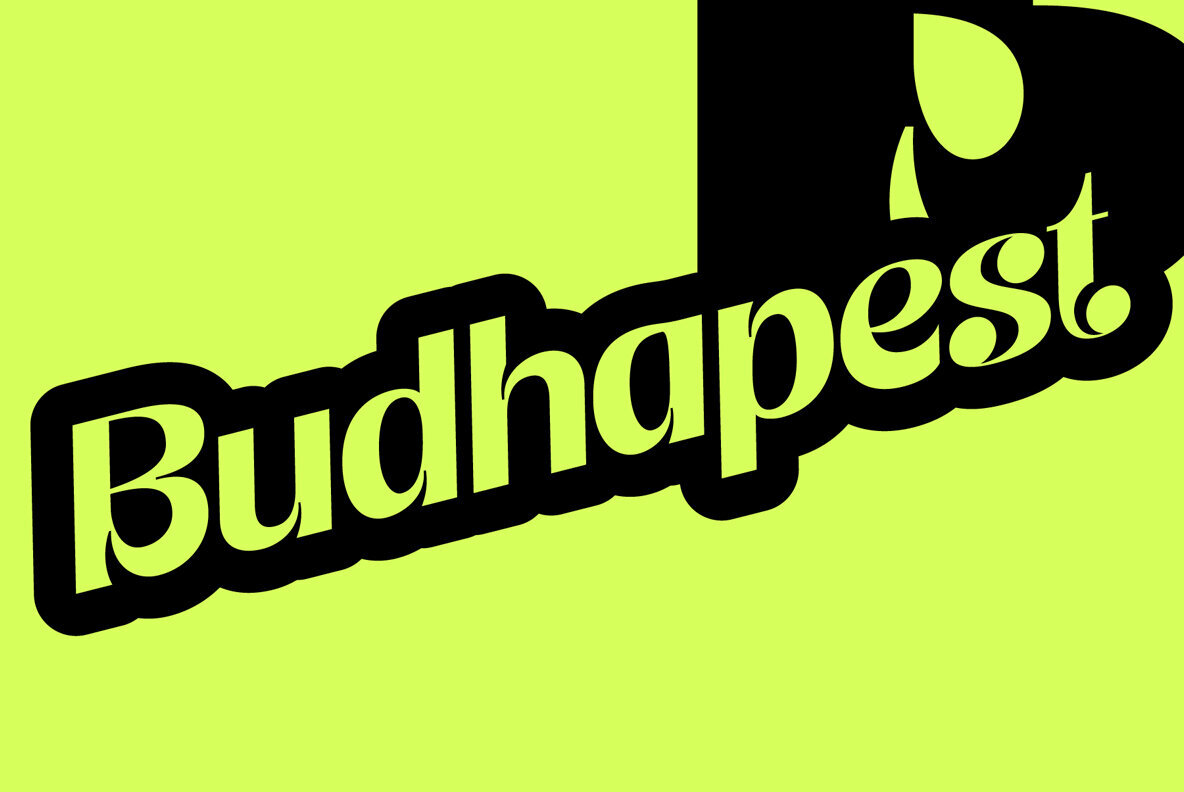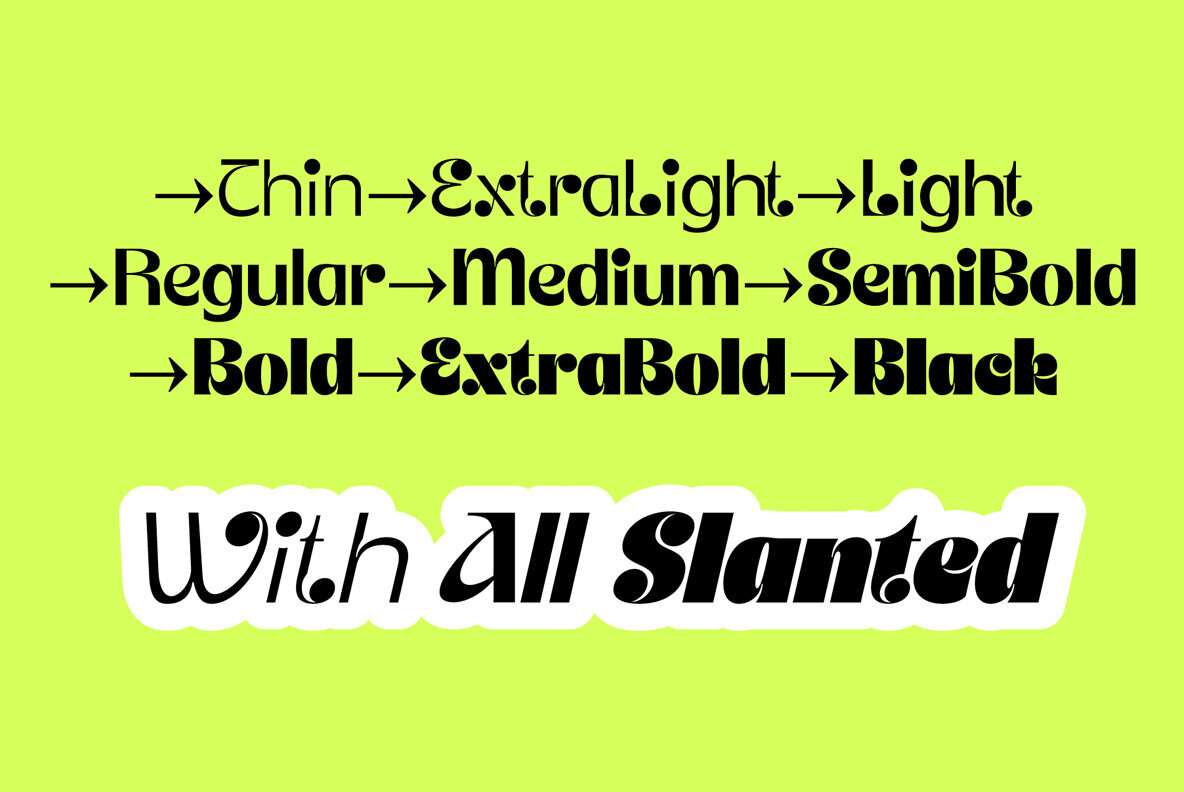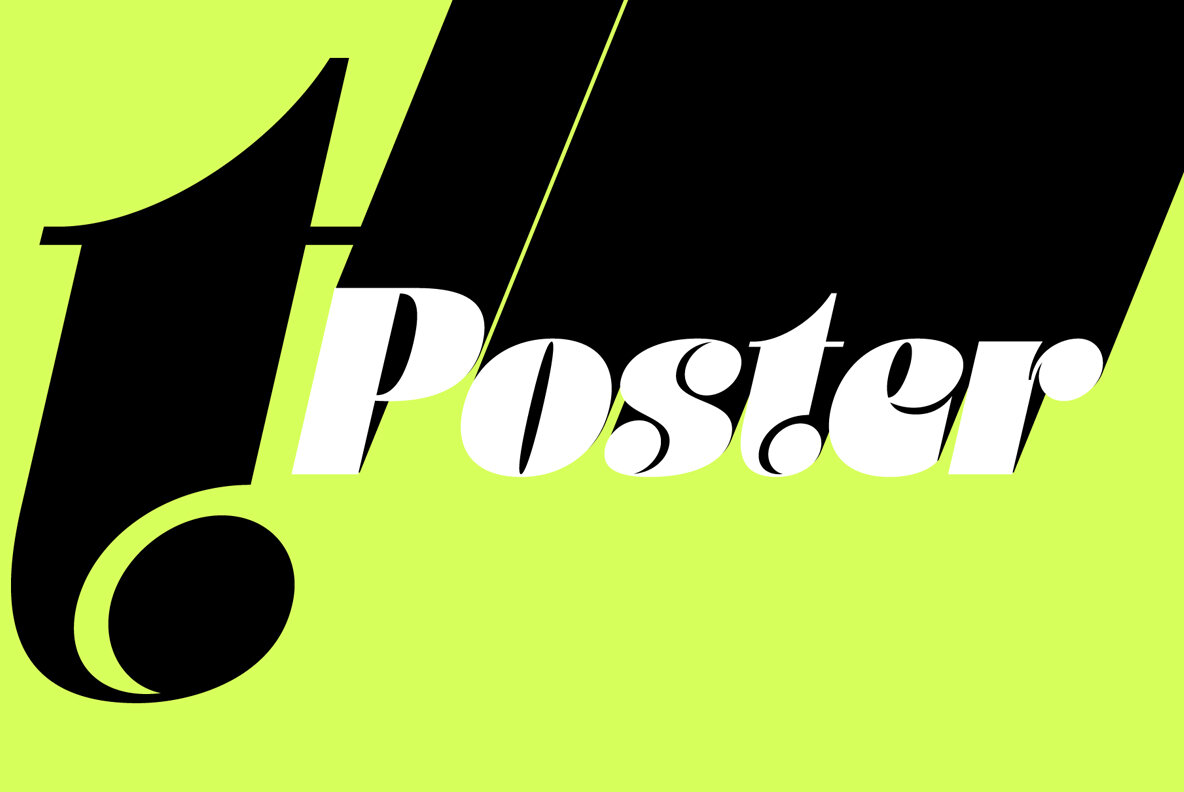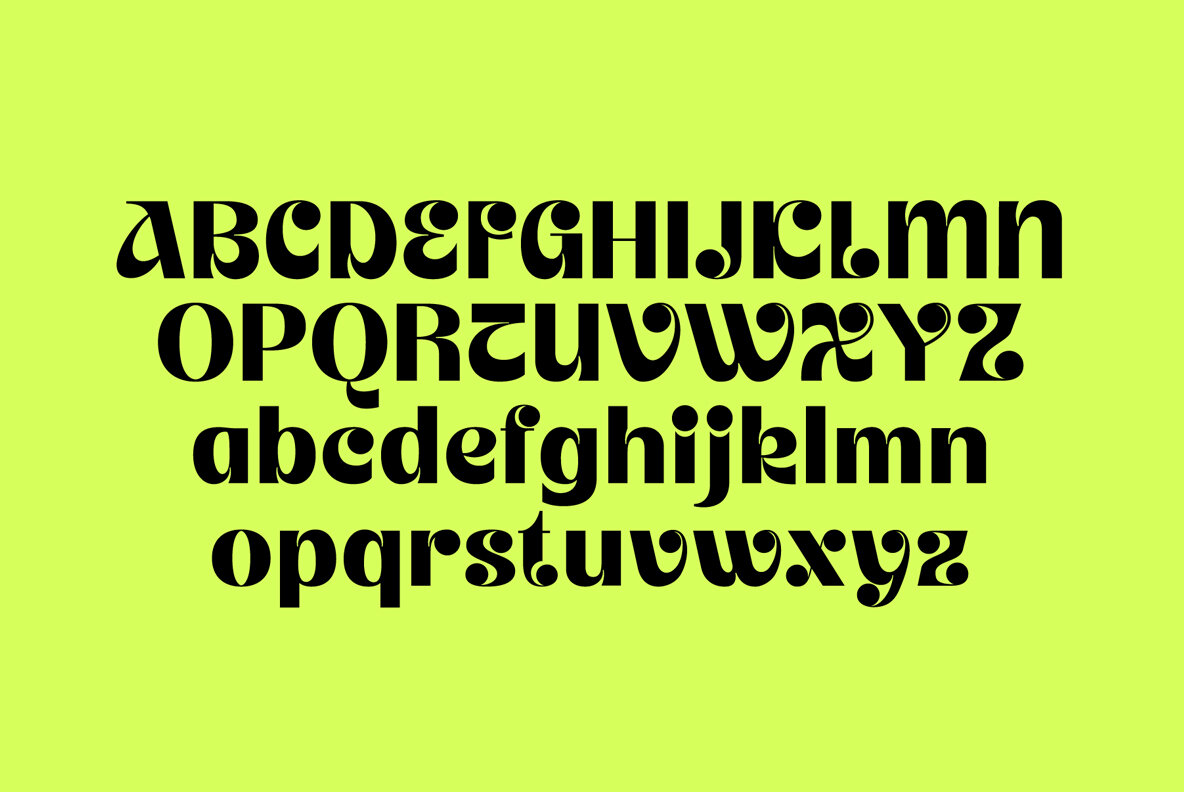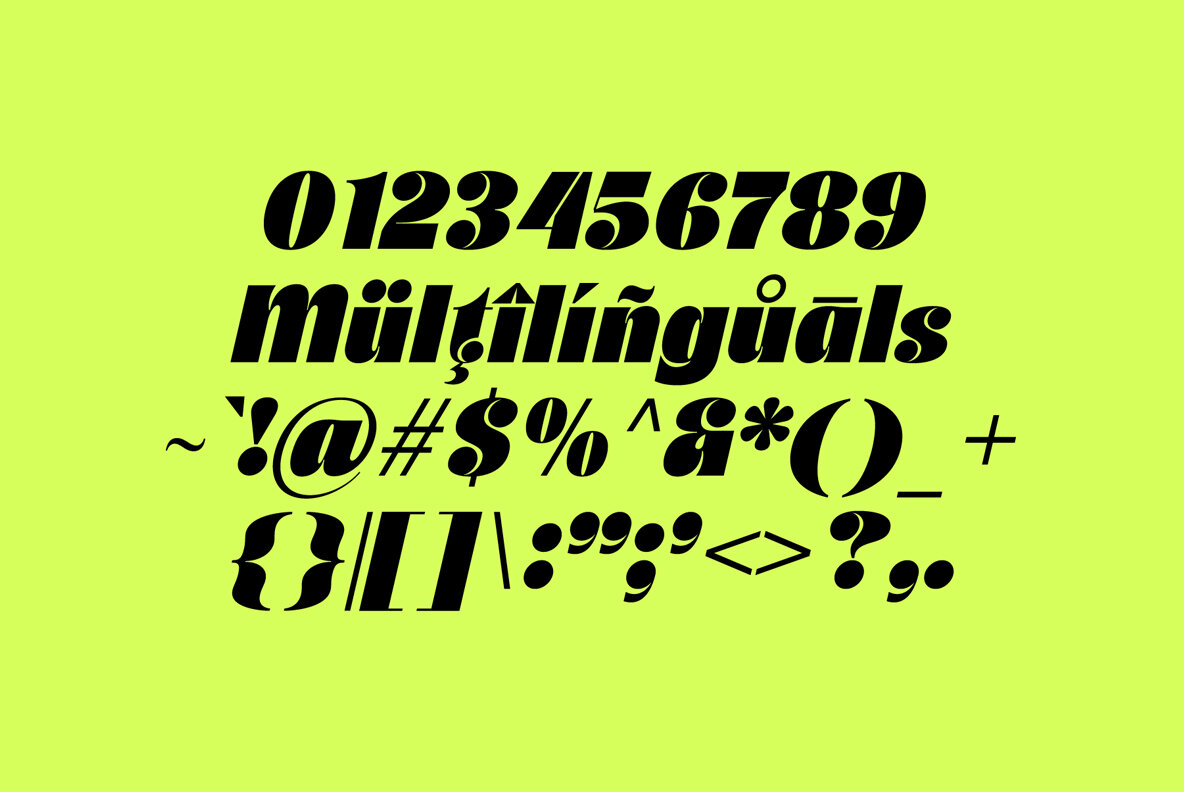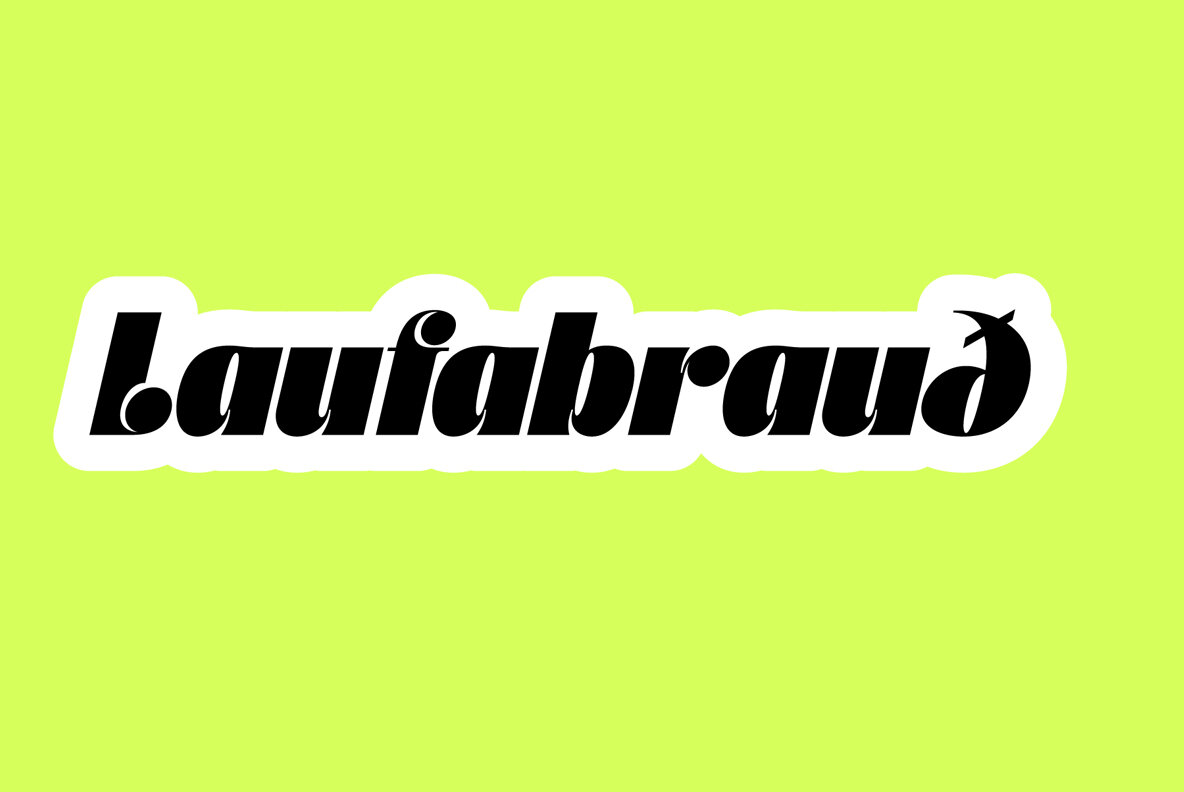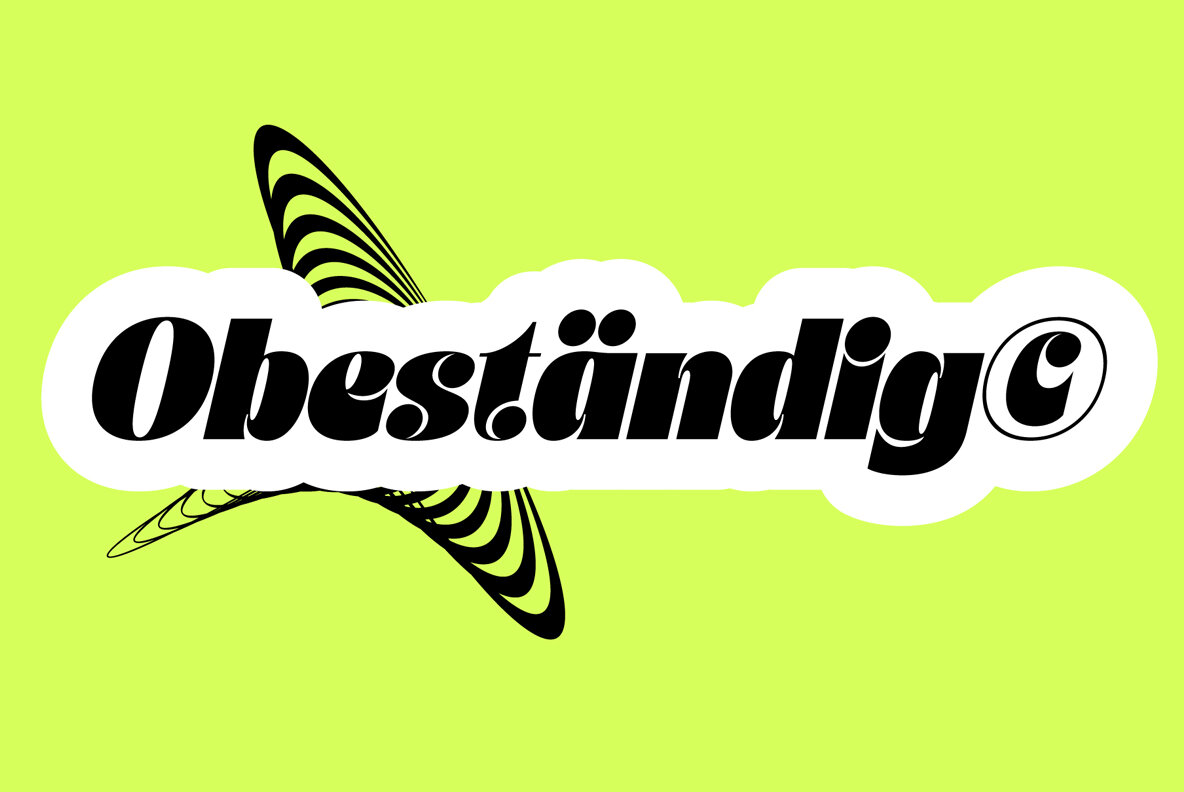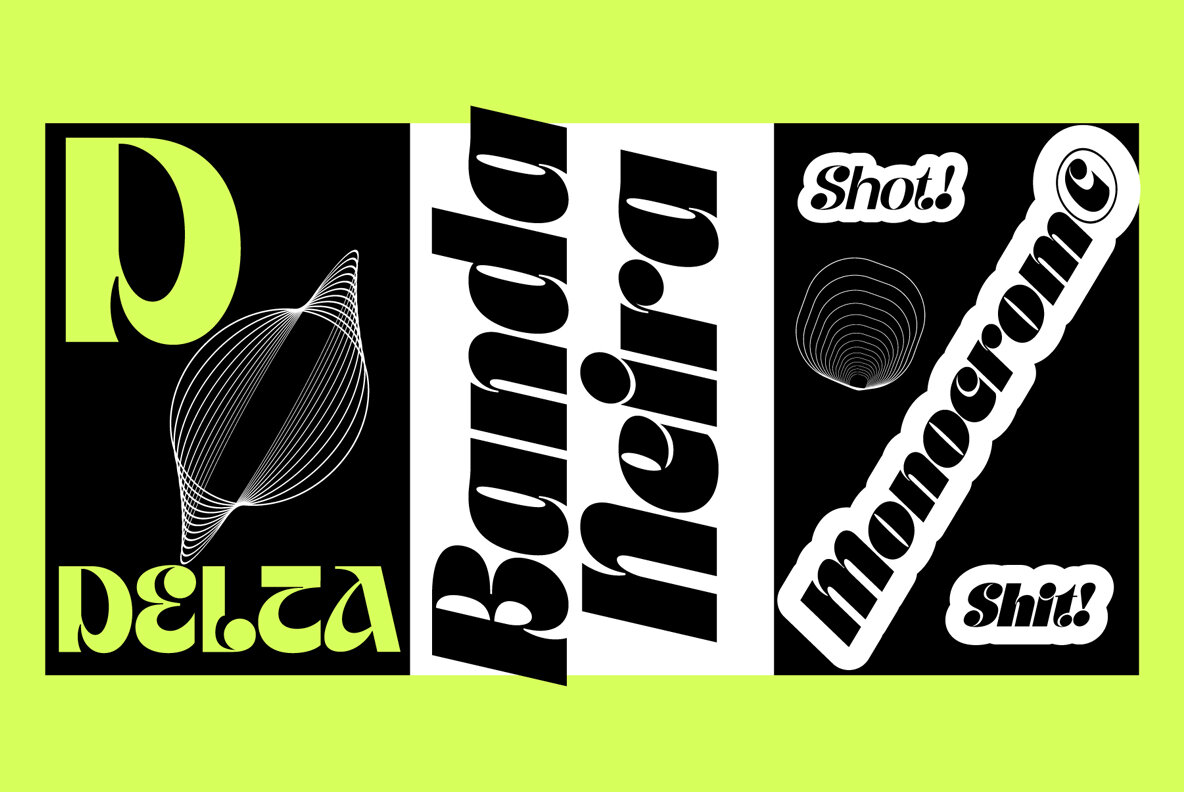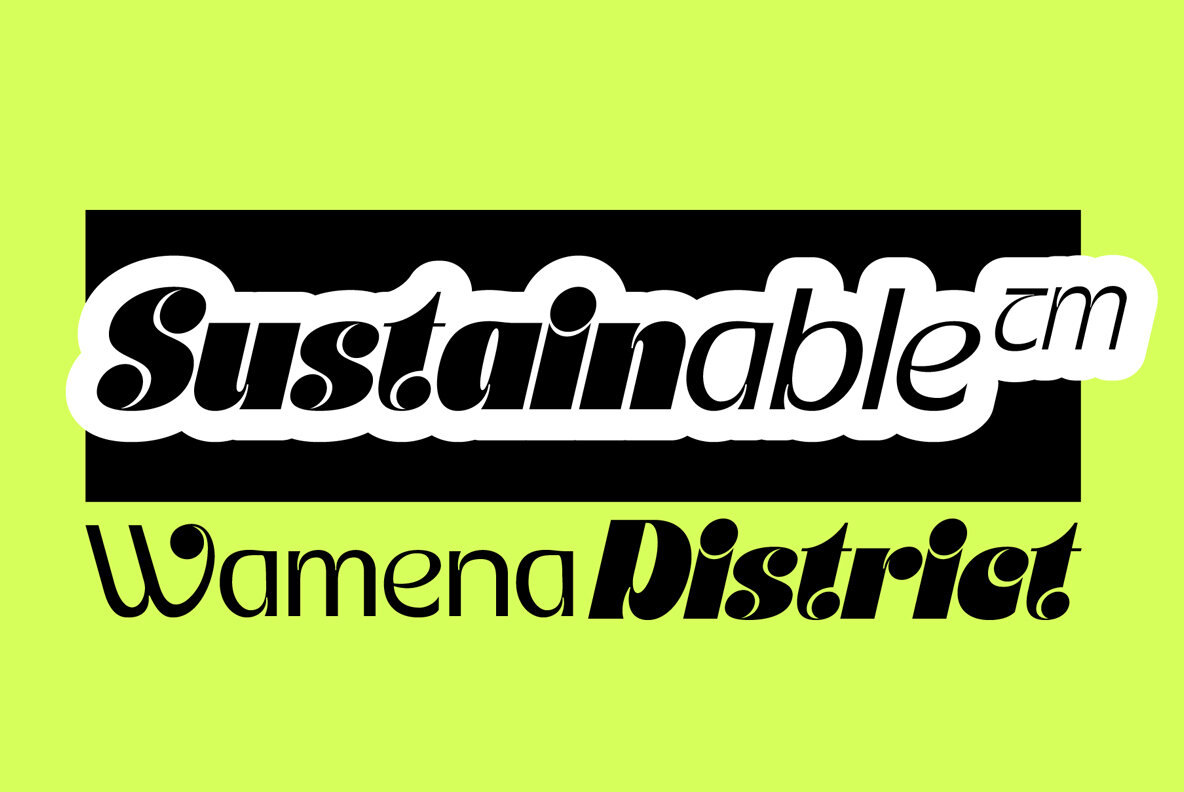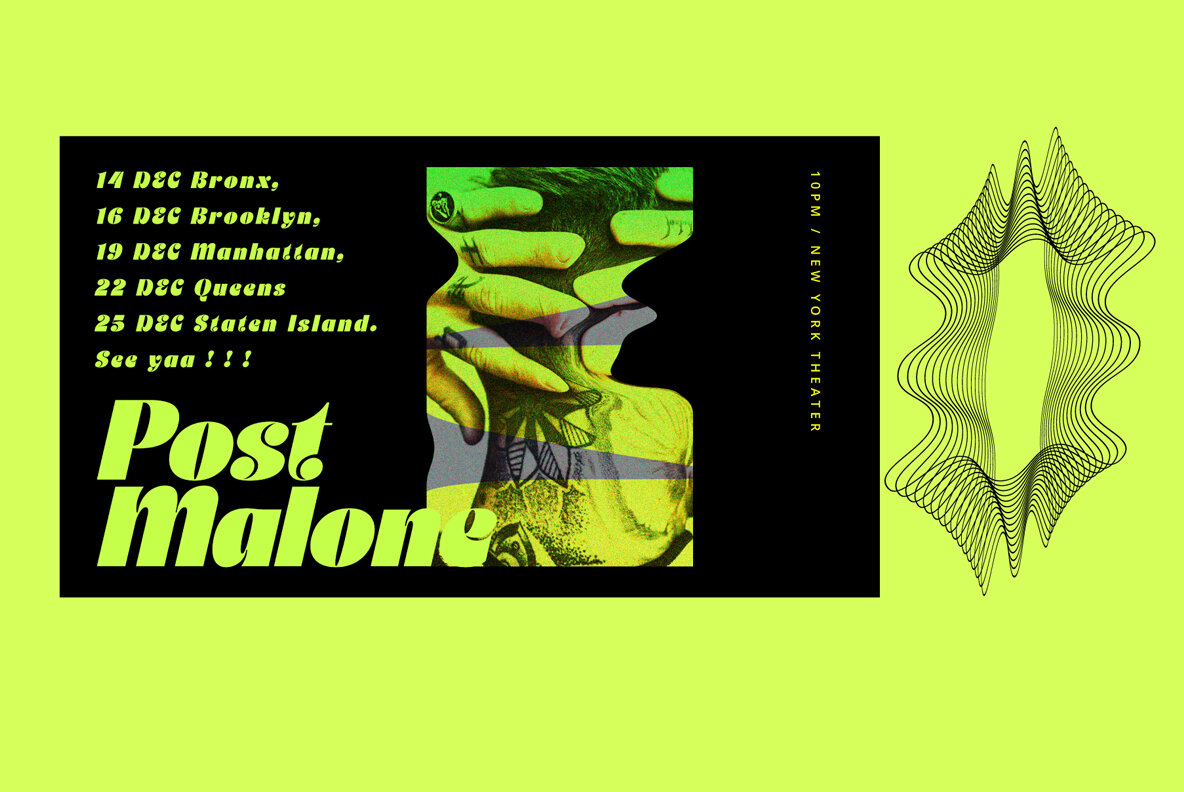
JT Modernism Font
JT Modernism is a cutting-edge font that seamlessly blends a funky aesthetic with a modern twist. Boasting a total of 18 weights, ranging from the delicately Thin to the boldly commanding Black, this font offers a versatile spectrum of options to suit any design project. The unique charm of JT Modernism lies in its slanted design for each weight, adding a dynamic and energetic flair to your typographic creations. The slant is carefully crafted to enhance the overall visual impact of the font, making it stand out in the contemporary design landscape. Whether you're designing a sleek corporate identity, a vibrant poster, or an edgy website, JT Modernism provides the flexibility and range to meet your every need. It's not just a font; it's a statement, an embodiment of the spirit of the contemporary design renaissance. Welcome to the future of typography – welcome to JT Modernism.